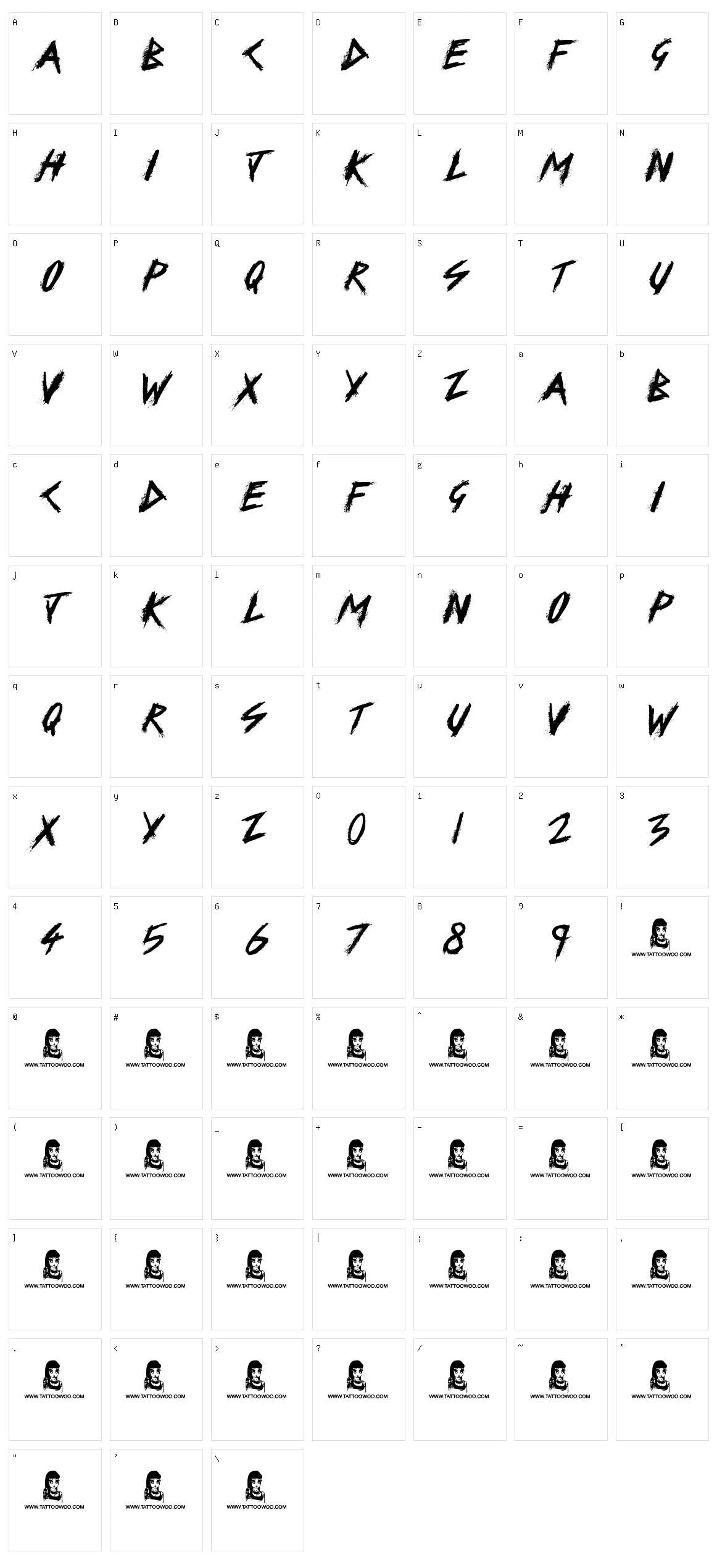
The free font Skid is carefully designed by JSH creates, showcasing a thoughtful balance of creativity and usability and falls under the Horror font style. When you download the ZIP file, it contains only 248.95 KB of font files, making it lightweight and quick to download. Please review the license details below to understand permitted usage and distribution rights. If license information is not available, we recommend using this font for personal projects only or contacting the author directly for commercial usage permissions.